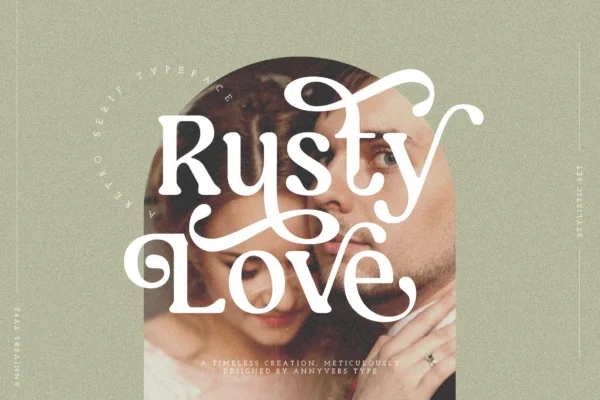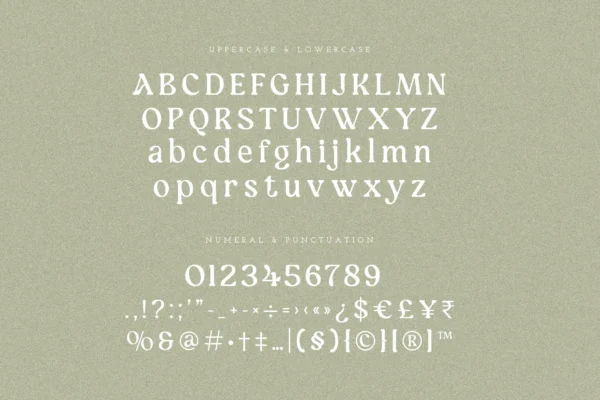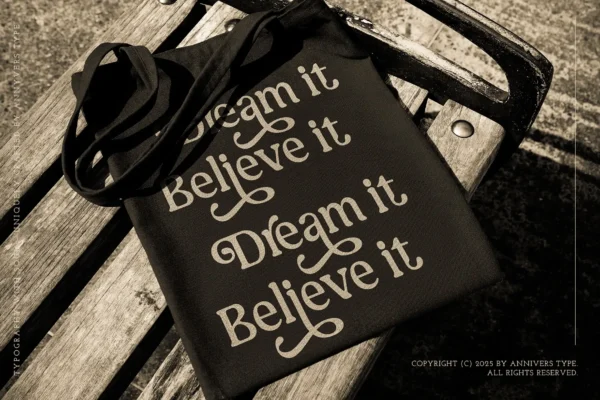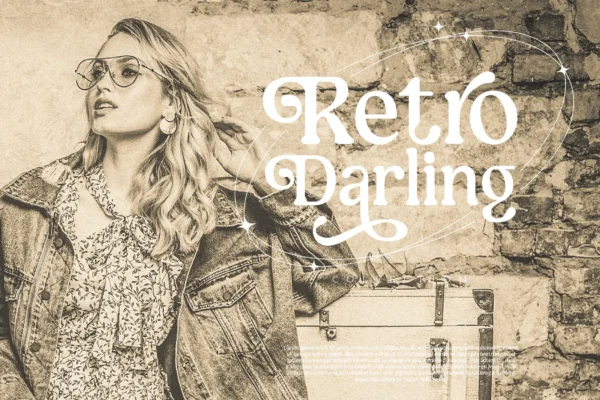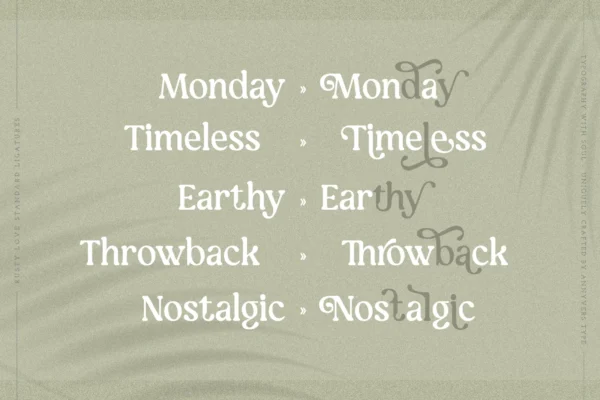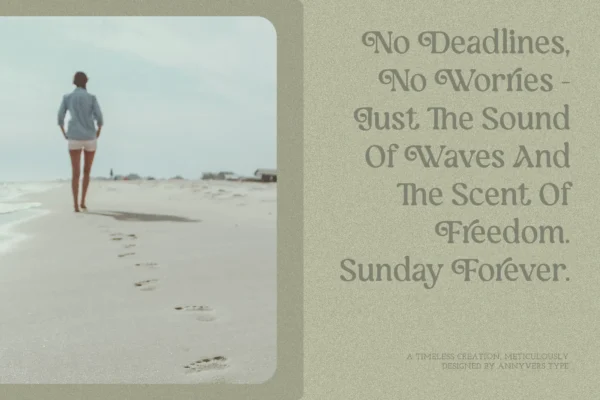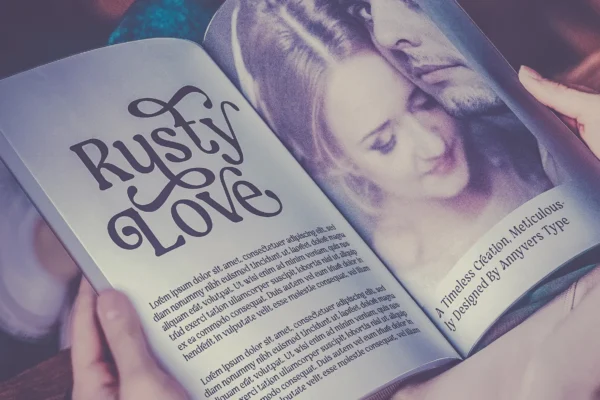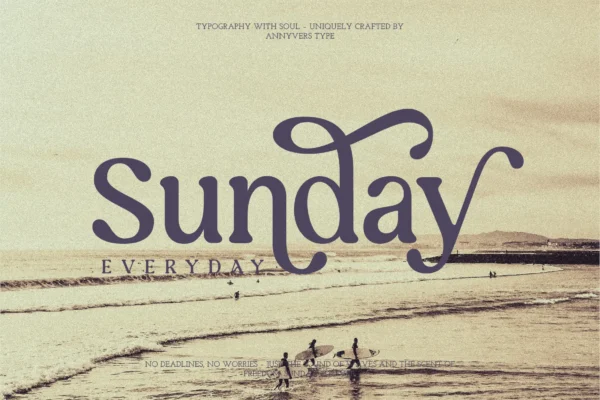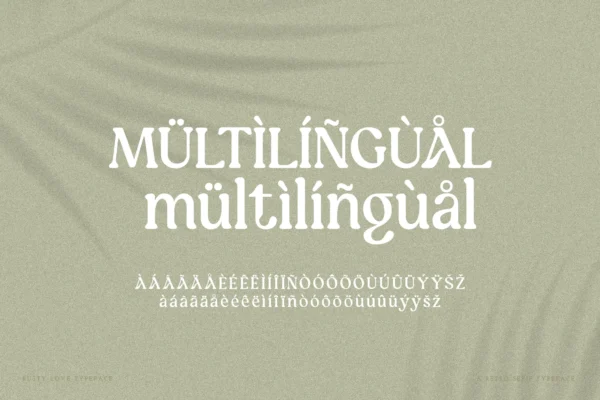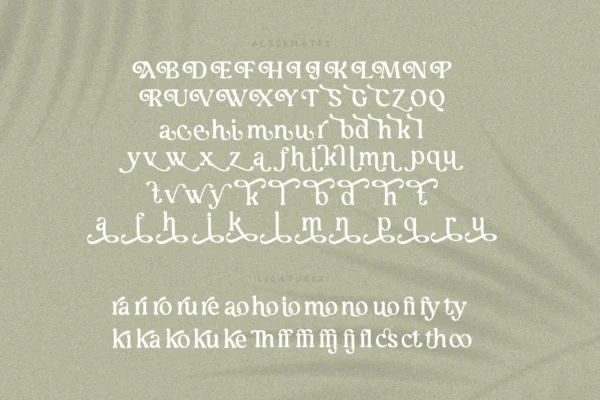
Rusty Love – Retro Vintage Charm Font
Introducing Rusty Love, a bold serif typeface that captures the spirit of a classic era with its undeniable charm. This font is your key to unlocking a perfect fusion of vintage warmth and modern clarity, making it an essential tool for creating memorable logos, compelling posters, or elegant packaging.
- Confident & Chic: Built with substantial, self-assured strokes that deliver a message of retro elegance.
- Broadly Versatile: Exceptionally suited for a variety of applications, including branding projects, magazine layouts, apparel designs, and signage.
- Extensive Multilingual Support: Coverage includes a vast range of European and African languages, from the Romance, Germanic, and Nordic families (such as English, French, Spanish, German, Italian, Portuguese, Dutch, Swedish, Danish, and Norwegian) to Bantu languages like Swahili and Zulu.
- Classic Meets Modern: A truly nostalgic font that has been crafted with a sharp, contemporary sensibility.
- Brand Identity & Logos: Instill a bold, vintage personality into your brand’s visual image.
- Editorial & Publications: Create layouts that command attention with typography that is both classic and current.
- Luxury Goods & Packaging: Enhance the appeal of product labels and premium packaging with a sophisticated touch.
- Posters & Environmental Graphics: Effortlessly channel the vibe of vintage film and advertising.
Rusty Love is the go-to solution whether your project calls for a refined throwback aesthetic or a strong, modern statement. So, are you ready to infuse your designs with a touch of timeless character?